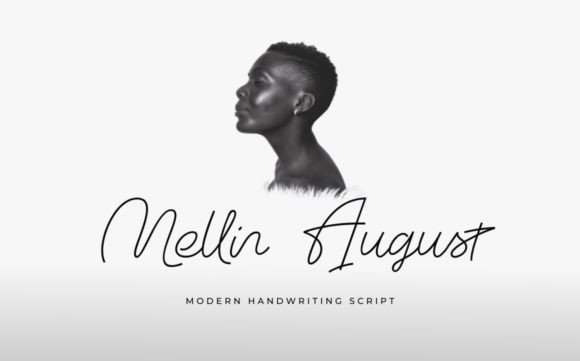
Introducing the Mellin August Font, a beautiful and elegant script font designed to add a touch of sweetness and friendliness to your design projects. Handcrafted by the skilled hands of doridodesign, Mellin August exudes a unique charm that will make your designs stand out.
Immerse yourself in the enchanting world of Mellin August, where each letter dances and flows with graceful curves, creating a harmonious composition that captures the essence of handwritten beauty. Whether you're crafting modern logos, heartfelt Instagram quotes, or elegant wedding stationery, Mellin August will transform your words into captivating works of art.
Unleash your creativity and let your imagination soar as you explore the endless possibilities of Mellin August. Its versatile nature makes it the perfect companion for a wide range of design projects, from printed collateral and labels to captivating websites. Experience the joy of creating designs that resonate with authenticity and heart.
Go beyond the ordinary and embrace the allure of Mellin August. Its sweetness and charm will infuse your designs with a touch of magic, leaving a lasting impression on your audience. Embrace the power of handwritten elegance and embark on a design journey like no other.